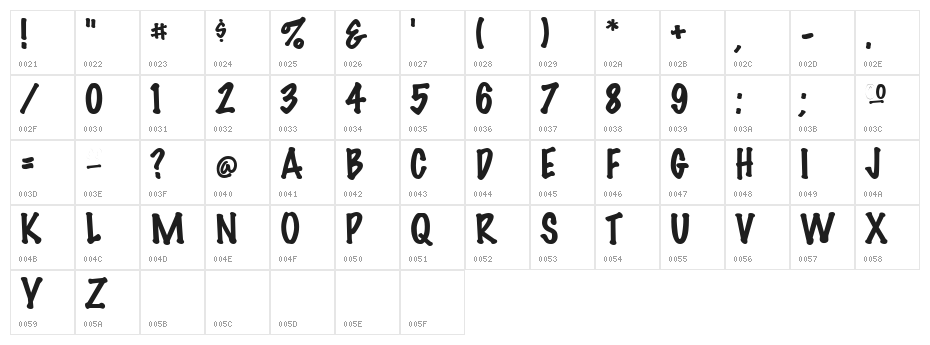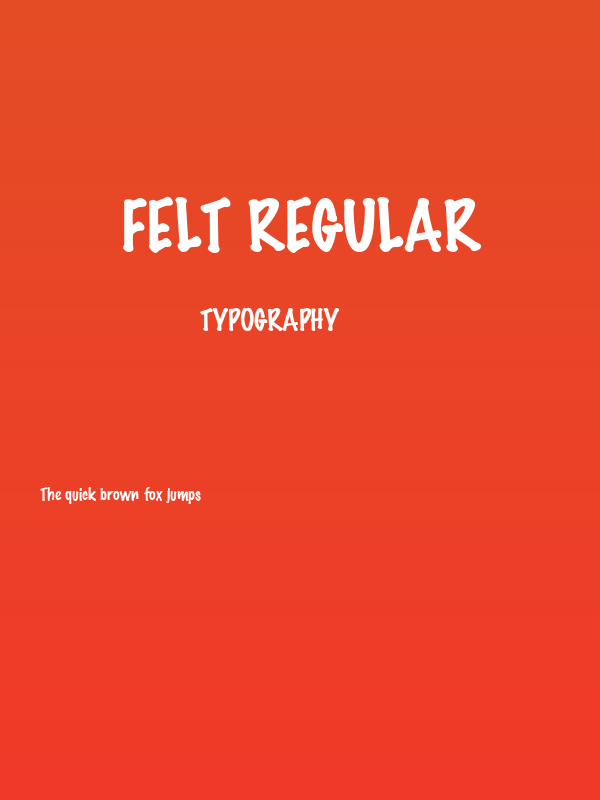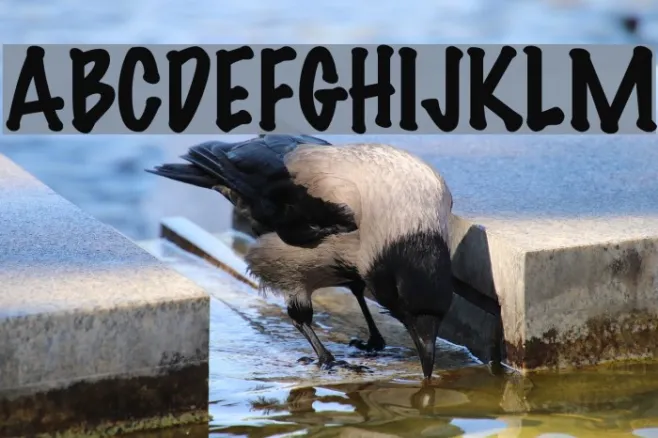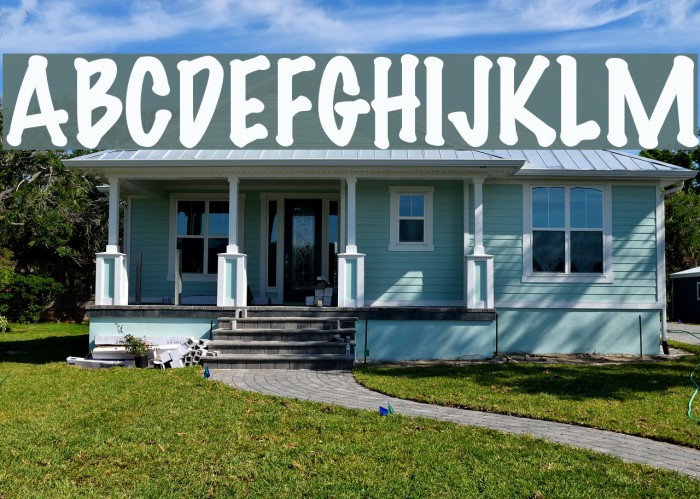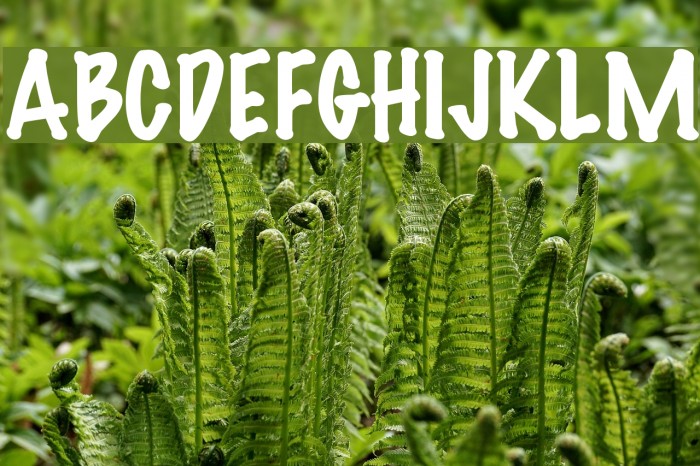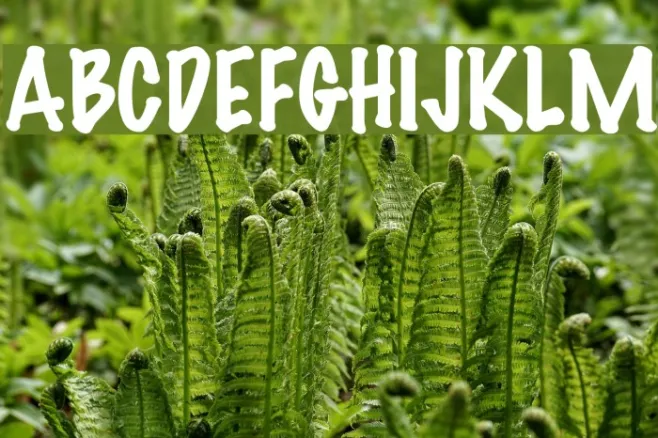
Felt Regular Font
Felt Regular Description
This font features a bold and playful style with a handwritten appearance. The characters are rounded and slightly irregular, giving it a casual and friendly vibe. The uppercase and lowercase letters maintain a consistent thickness, contributing to its cohesive look. The numbers and special characters follow the same playful design, making it suitable for informal and creative projects. The overall design is approachable and lively, perfect for adding a personal touch to any text.
| Overall Style | Playful |
| Use Case | Headlines, Logos, Informal Text |
| Proposed Projects | Ideal for children's books, greeting cards, posters, and playful branding. |